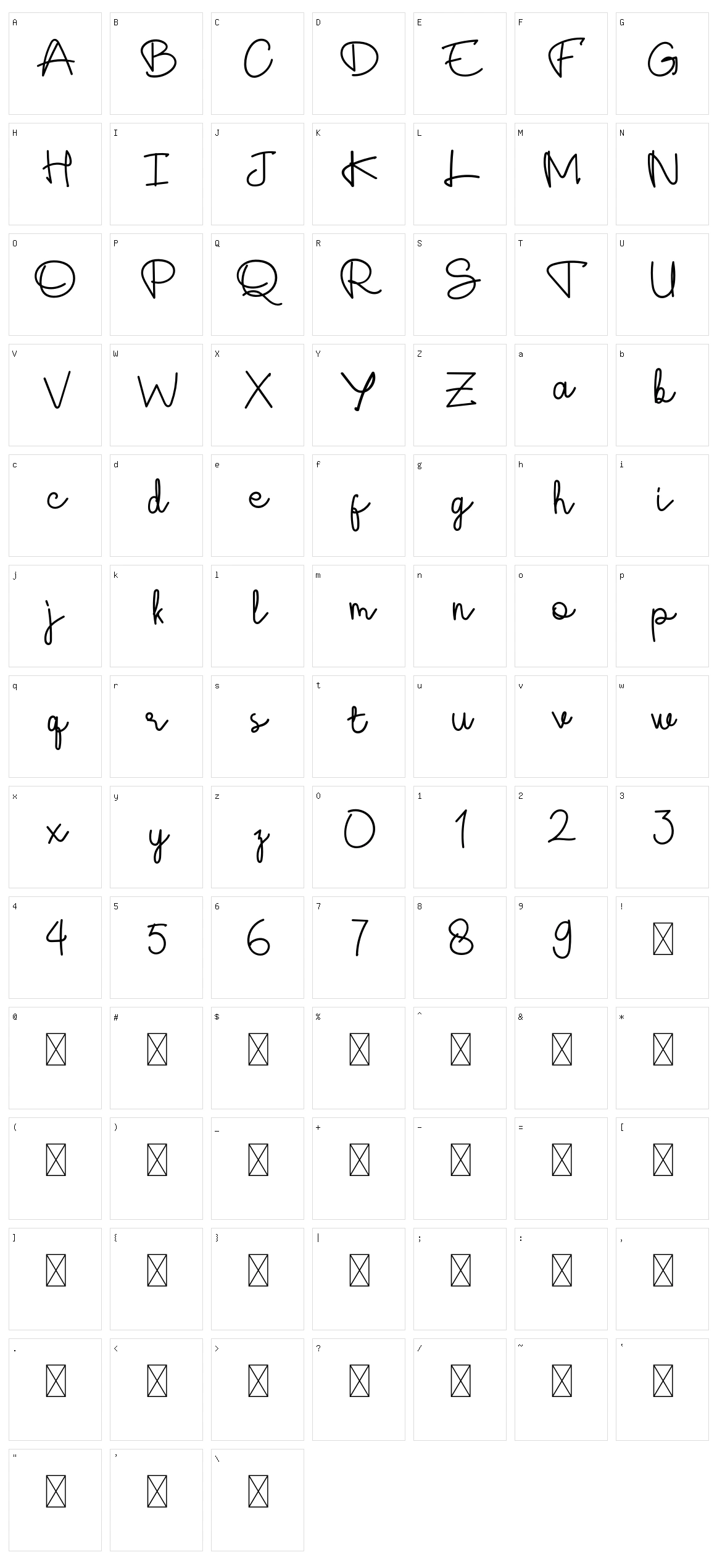
Introducing Tyllapia - Handwritten Script Font
This is KaryAmo's first handwritten script font, the unconsistency of kerning give your design a unique and relaxing look.